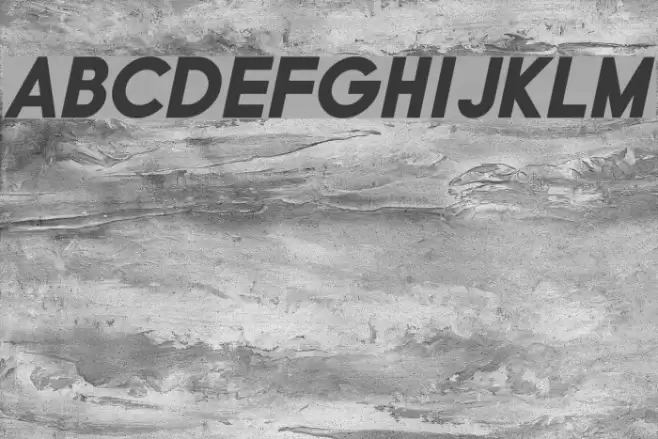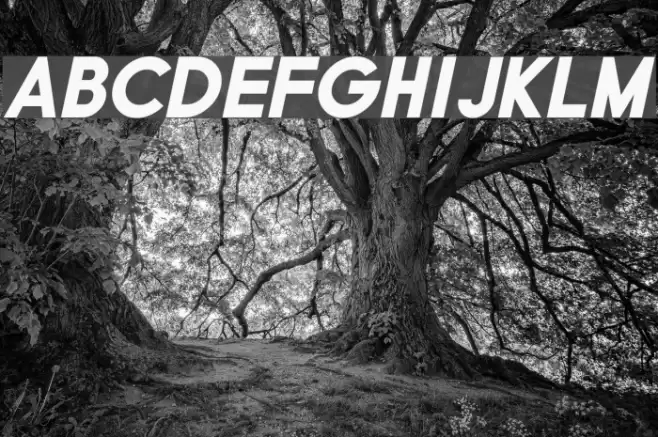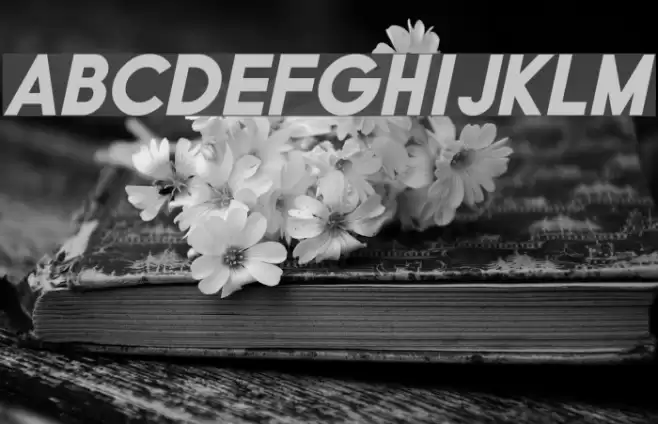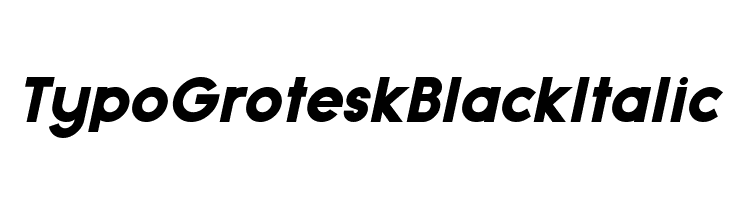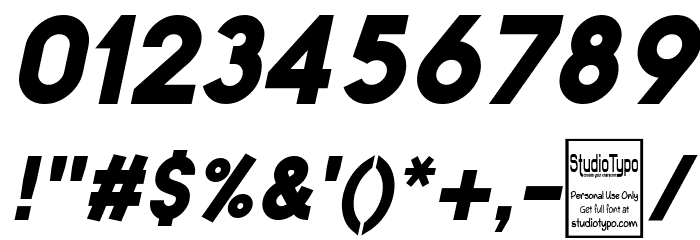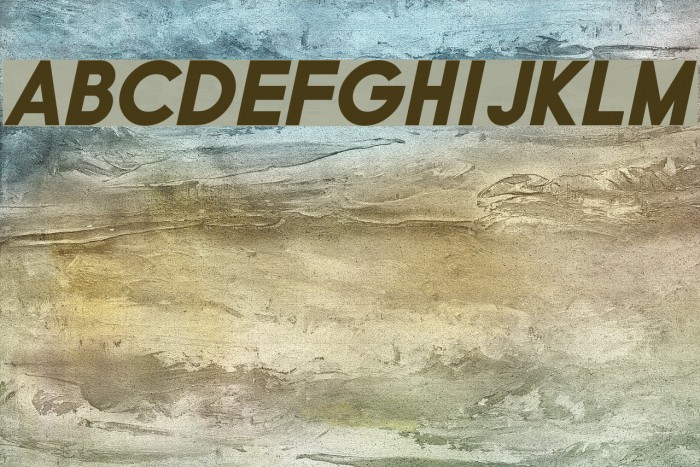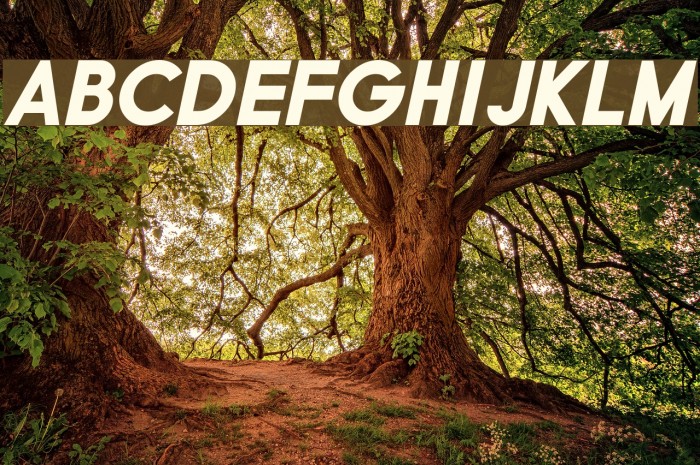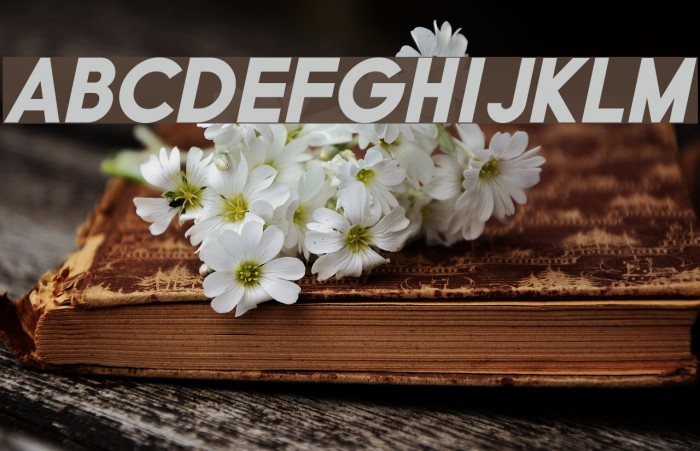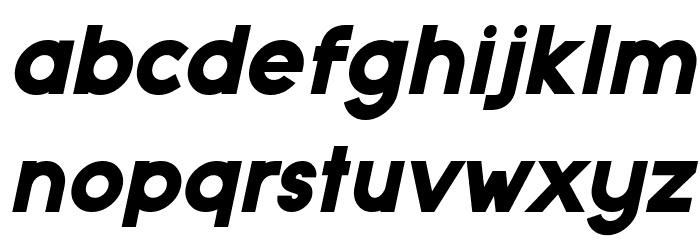
Typo Grotesk Black Italic
This font exhibits a bold and dynamic style with a strong italic slant, giving it a sense of movement and urgency. The characters are thick and robust, with a consistent stroke width that emphasizes its boldness. The uppercase and lowercase letters maintain a uniform style, ensuring readability while adding a modern flair. The numerals and special characters are designed to match the overall aesthetic, providing a cohesive look across all text elements. This font is ideal for making a strong visual impact, suitable for headlines and attention-grabbing designs.
A bold, italic font with a dynamic and modern style.
- Proposed Projects: Ideal for branding, advertising, posters, and any project requiring a strong visual impact.